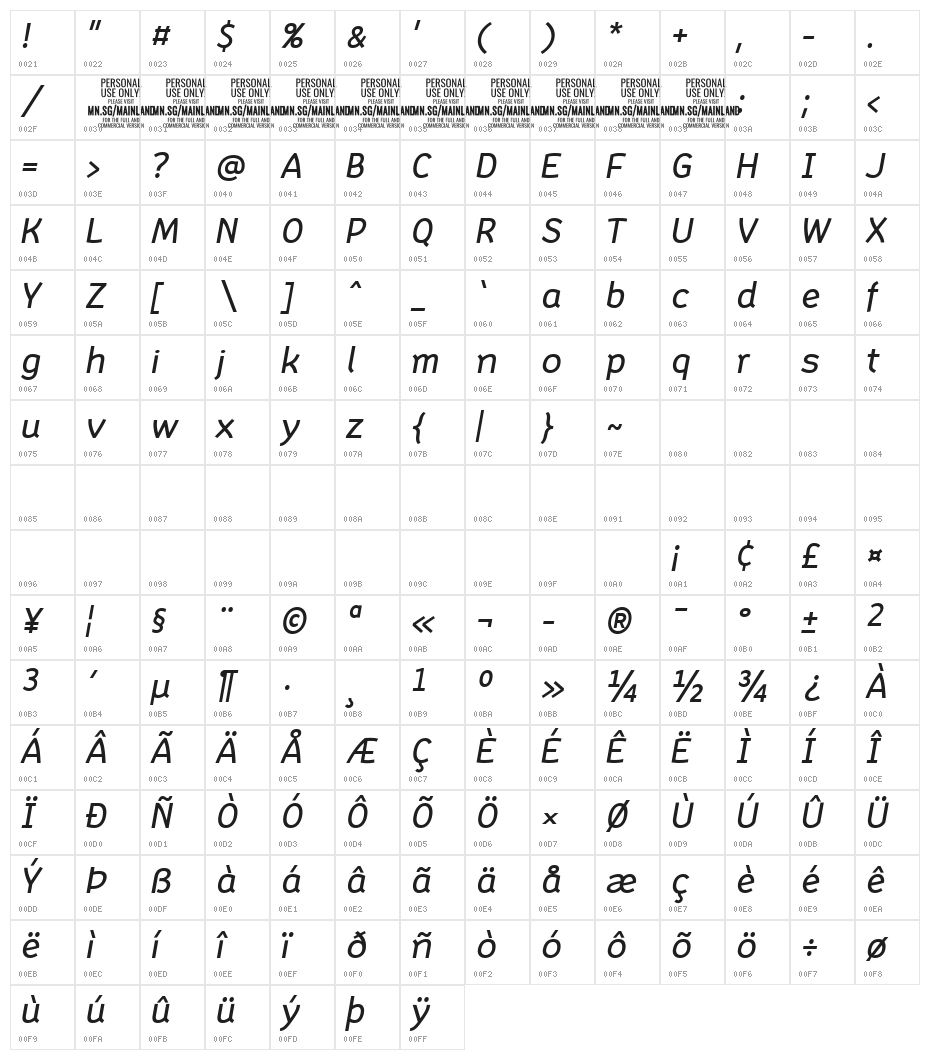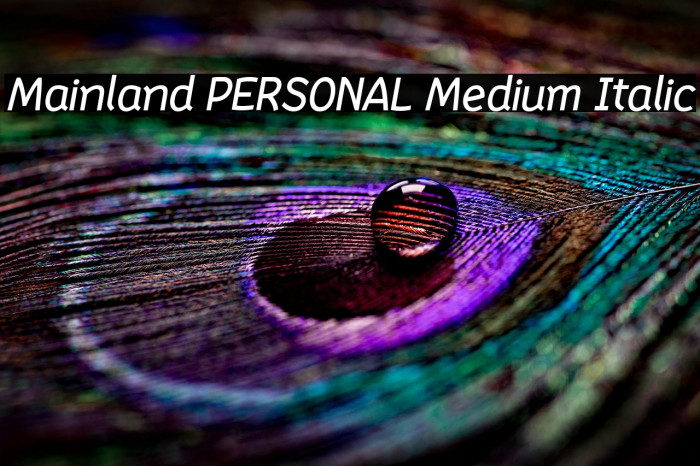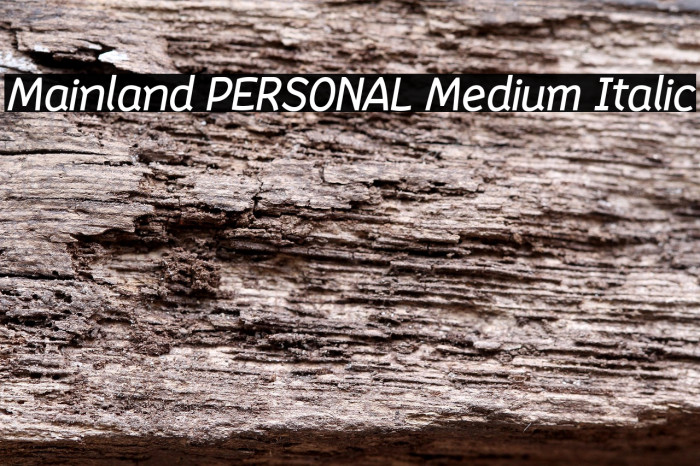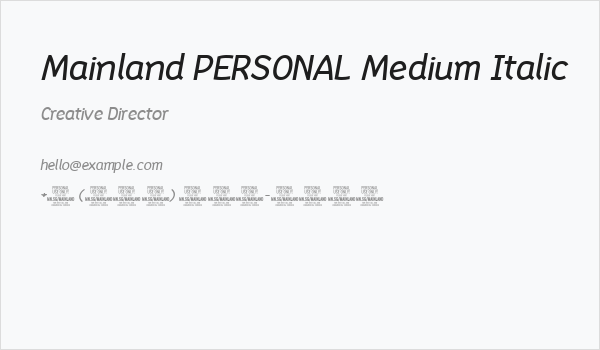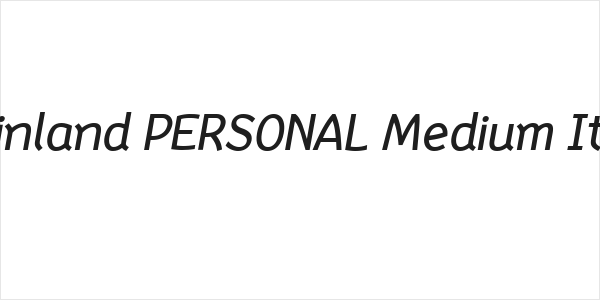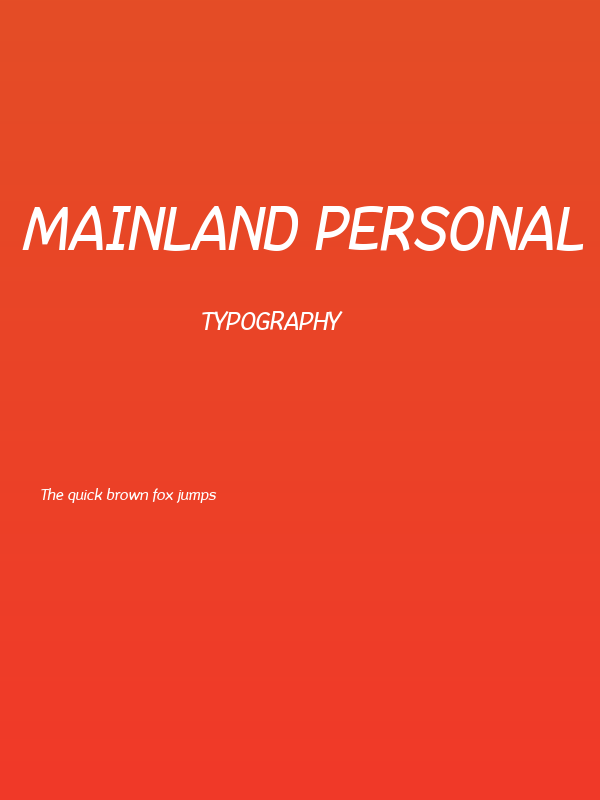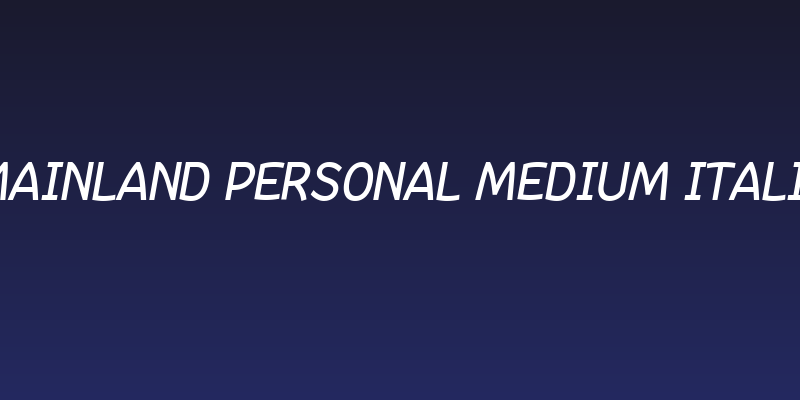
Mainland PERSONAL Medium Italic Font
Mainland PERSONAL Medium Italic Description
This font features a sleek, italicized design with a modern aesthetic. The characters are slightly slanted, giving a dynamic and forward-moving appearance. Uppercase and lowercase letters maintain a consistent style, with smooth curves and clean lines. The numerals and special characters are designed to complement the alphabet, ensuring readability and visual harmony. The overall look is professional and contemporary, making it suitable for various design applications.